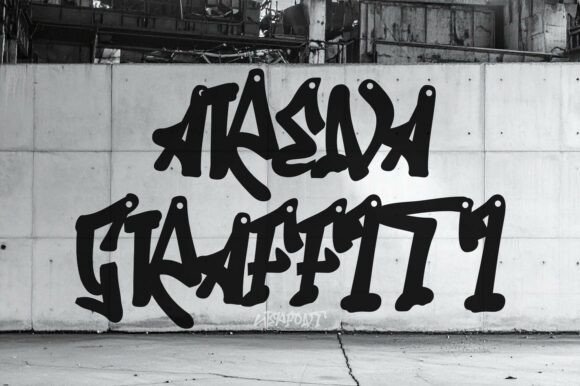
Unleash Your Creativity with Arena Graffiti Font
I’ll never forget the design project that led me to discover Arena Graffiti Font. I was working on a branding campaign for a streetwear client, and I needed a font that captured the raw energy and urban artistry of street graffiti. I spent hours scouring the internet for the perfect font, but nothing seemed quite right. That was until I stumbled upon Arena Graffiti. Its bold, impactful letterforms and distinctive hand-painted aesthetic immediately caught my eye. I knew I had found the perfect fit for my project.
First Impressions: A Review of Arena Graffiti Font
• ✅ Bold and Impactful Letterforms: Arena Graffiti’s letterforms are designed to make a statement. With sharp angles and deliberate drips, this font demands attention and adds an edgy touch to any design.
• ✅ Hand-Painted Aesthetic: The font’s hand-painted, spray-can aesthetic gives it a unique and authentic look that’s perfect for streetwear branding, skateboarding culture, and music album art.
• ✅ Full Set of Uppercase Letters and Numerals: Arena Graffiti includes a full set of uppercase letters, numerals, and essential punctuation, making it a versatile font for a wide range of design projects.
• ✅ Easy to Read: Despite its bold and edgy aesthetic, Arena Graffiti is surprisingly easy to read, even at smaller sizes.
• 🤔 Limited Lowercase Options: Arena Graffiti is primarily an uppercase font, which may limit its use for certain design projects that require a more traditional mix of uppercase and lowercase letters.
• ⚠️ Not Suitable for Body Text: Due to its bold and edgy aesthetic, Arena Graffiti is best suited for headlines and titles rather than body text.
The Backstory Behind Arena Graffiti Font
Arena Graffiti Font was inspired by the urban art scene of the 1980s. The font’s designer, a young artist named Alex, grew up surrounded by graffiti and street art in the city. He was fascinated by the raw energy and creativity of these art forms and decided to capture their essence in a font. After months of experimentation and refinement, Arena Graffiti was born.
What is Arena Graffiti Font? Arena Graffiti Font is a dynamic and rebellious display font that embodies the raw energy and urban artistry of street graffiti.
What is Arena Graffiti best suited for? Arena Graffiti is best suited for designs that demand attention and convey an authentic, street-wise vibe, such as streetwear branding, skateboarding culture, music album art, and event posters.
Is Arena Graffiti easy to read? Yes, despite its bold and edgy aesthetic, Arena Graffiti is surprisingly easy to read, even at smaller sizes.